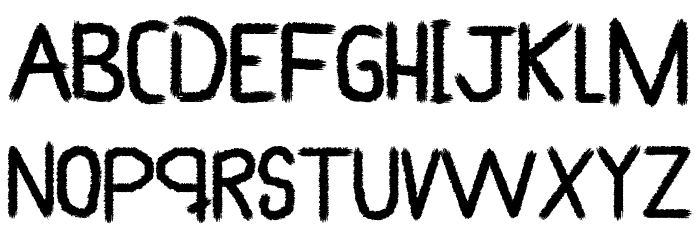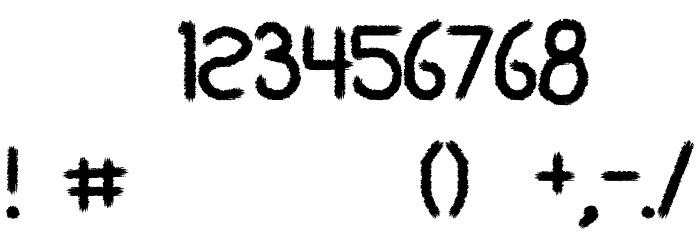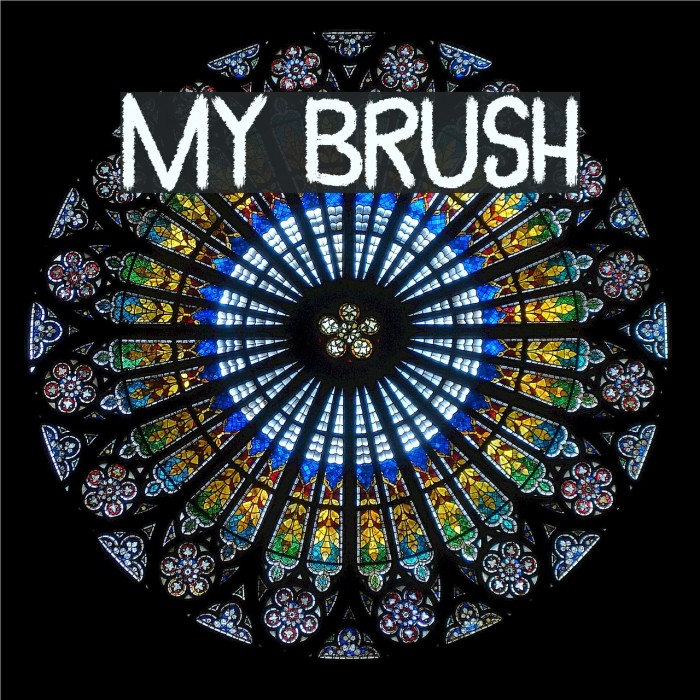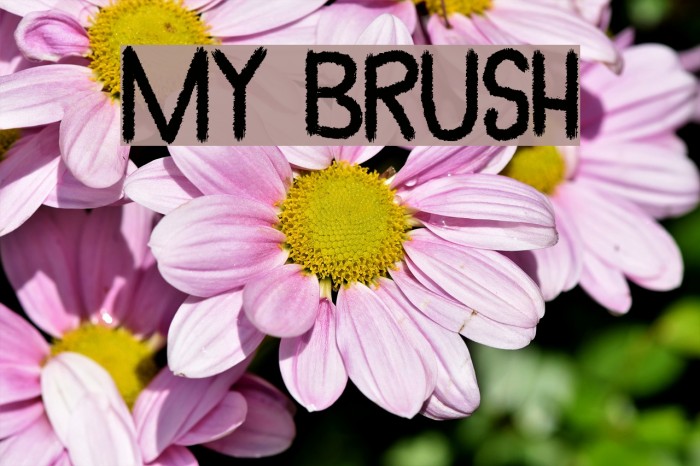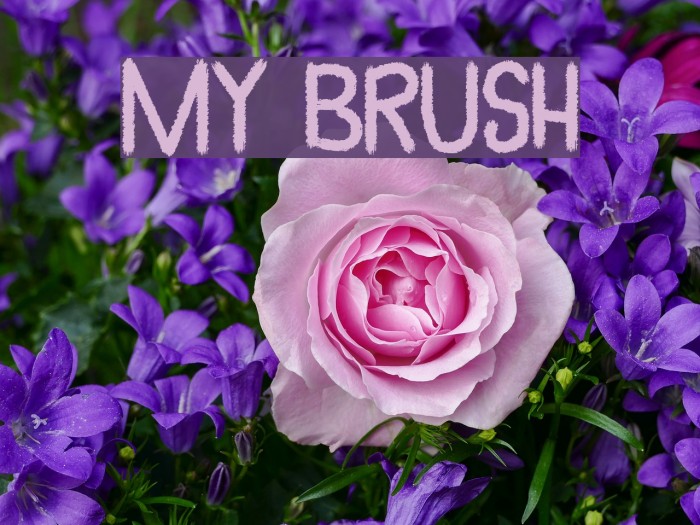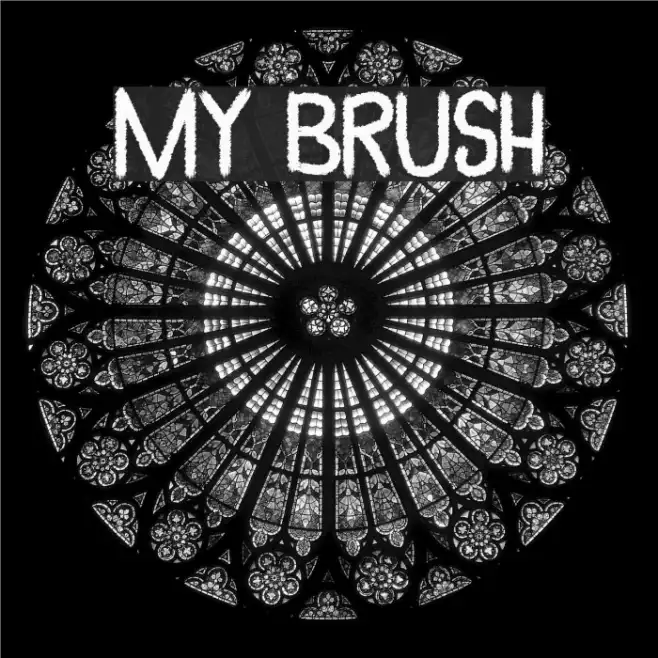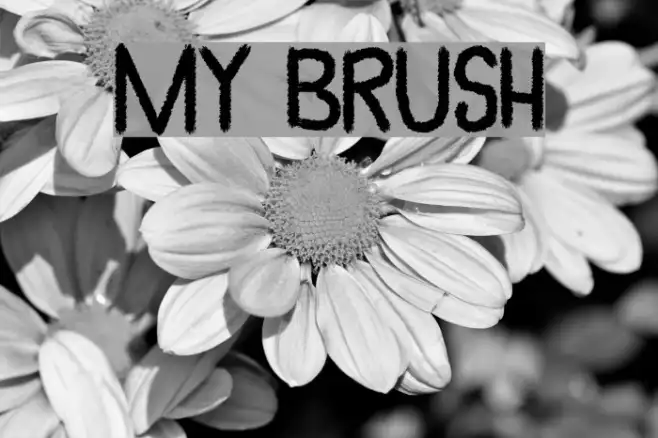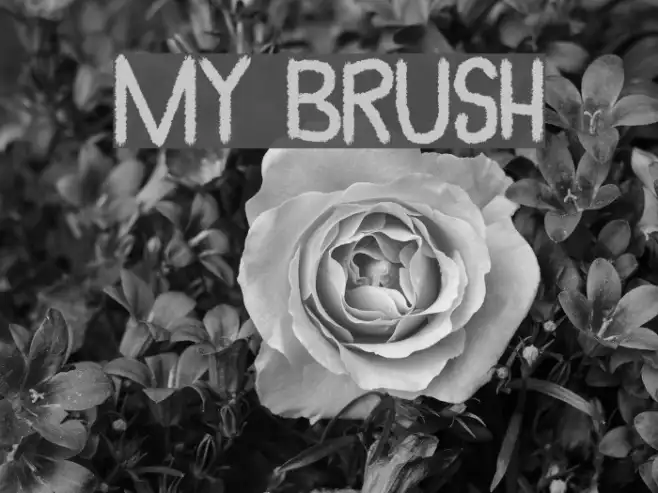
My Brush Font
This font exhibits a bold, brush-like texture with a hand-drawn appearance, giving it a dynamic and artistic feel. The strokes are uneven, mimicking the natural flow of a brush, which adds a sense of movement and energy. The characters are slightly irregular, enhancing the handcrafted aesthetic. This style is particularly effective in conveying a casual, creative, and informal tone. The uppercase and lowercase letters maintain a consistent style, with numbers and special characters following the same design principles. This font is ideal for projects that require a personal touch or an artistic flair.
A bold, brush-style font with a hand-drawn, artistic appearance.
- Proposed Projects: Ideal for artistic projects, branding, posters, and any design needing a creative, personal touch.
- Overall Style: Artistic